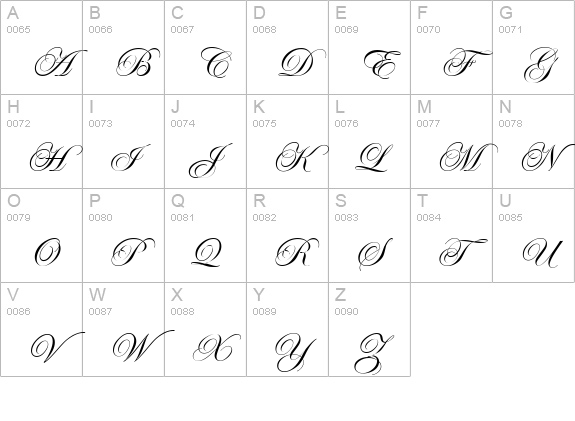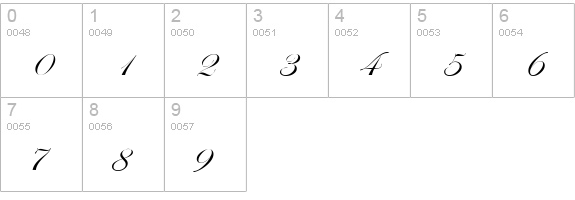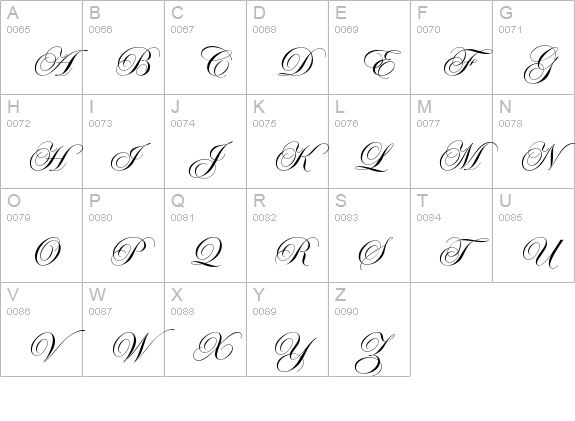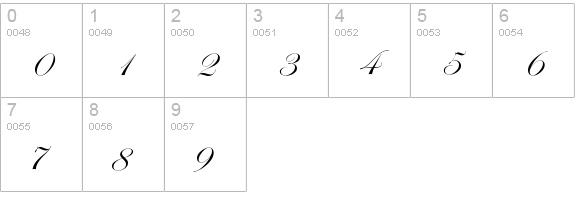
Esenin script One Font Details
Esenin Script One font is a stunningly elegant and sophisticated typeface that exudes a timeless charm and grace. With its flowing curves, delicate lines, and classic styling, this font brings a touch of refinement to any project it graces. Whether you're designing invitations, branding materials, or any other creative work, Esenin Script One will add a touch of sophistication and beauty. What's even better is that Esenin Script One font is completely free to download at FontsMarket.com. This means you can easily access this exquisite font and elevate your designs without any cost. Don't miss out on the opportunity to enhance your projects with the beauty and grace of Esenin Script One font - download it for free today!